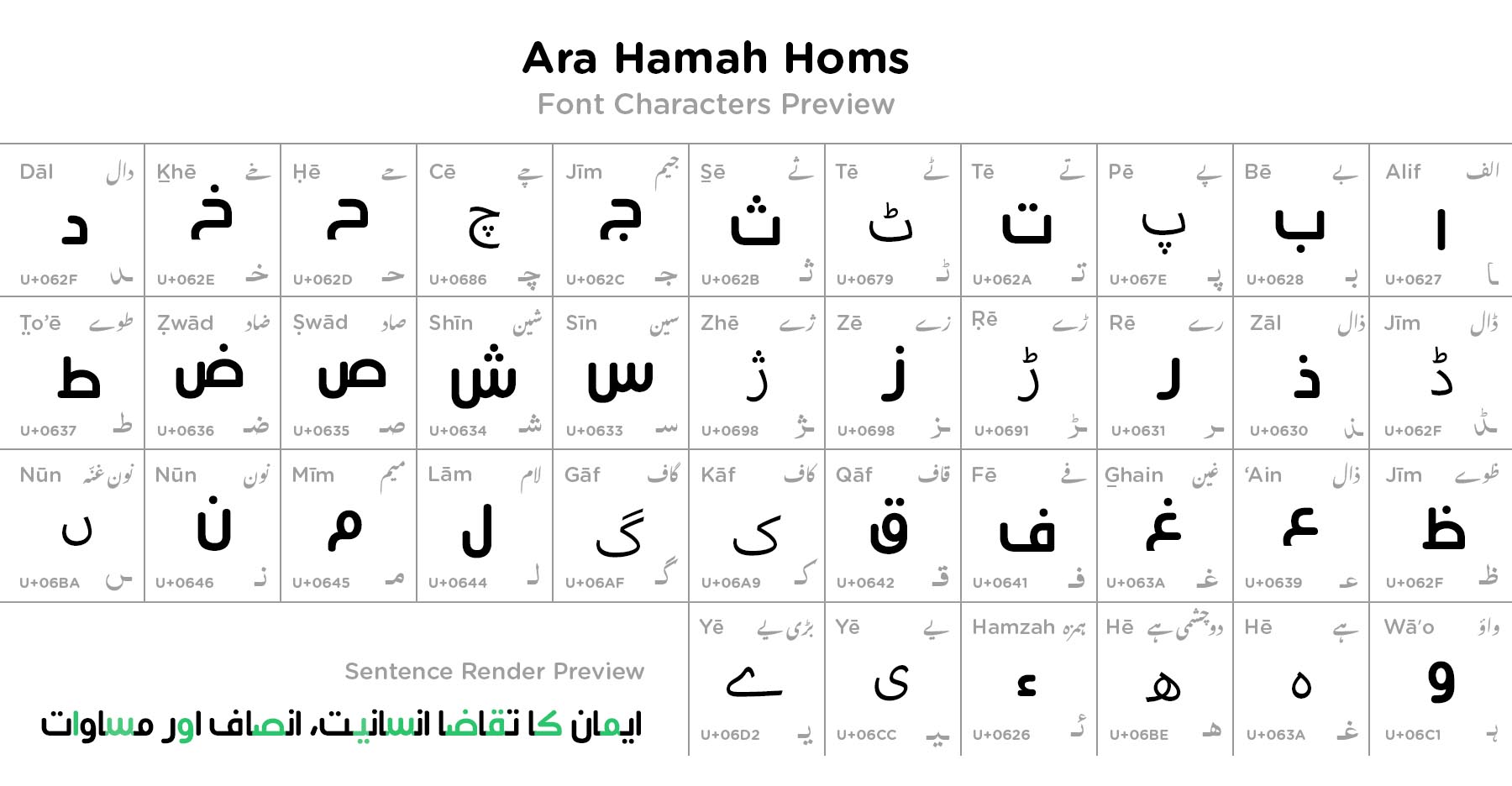
Ara Hamah Homs
Ara Hamah Homs is an Arabic font, available in both TrueType and OpenType format that is perfect for all of your artistic endeavors. The font was designed by Nabil MRAD of the Hamah Syrian Arab Republic and is available for personal use without charge. There are ten more versions of this Ara Hamah family font, with different weights but almost the same design. As for this font style, the letters are semi-bold with rounded edges and soft curves, giving the text a delicate look. With only 169 characters and a glyph count of 283, this typeface has a small character set and there’s a good chance that certain punctuation and special letters are missing. However, the typeface’s distinct and regular strokes and well-spaced letterforms offer great legibility even at small font sizes and on low-resolution displays. Ara Hamah Homs is a multipurpose typeface that may be used for ordinary writing, formal papers, creative material, and digital media but mostly for making headings as the bold nature of this font suggests. It adjusts fluidly wherever you use it, either for writing or branding purposes.
Font Family Ara Hamah Homs
Font Developer Nabil MRAD